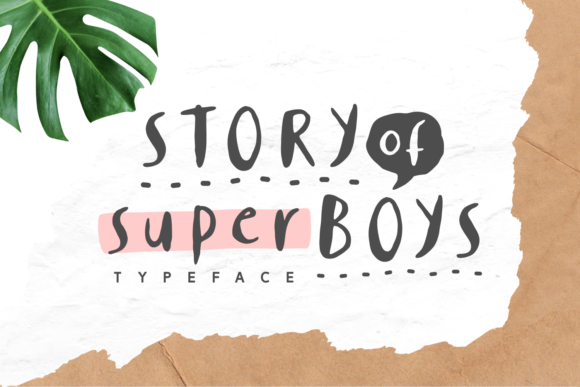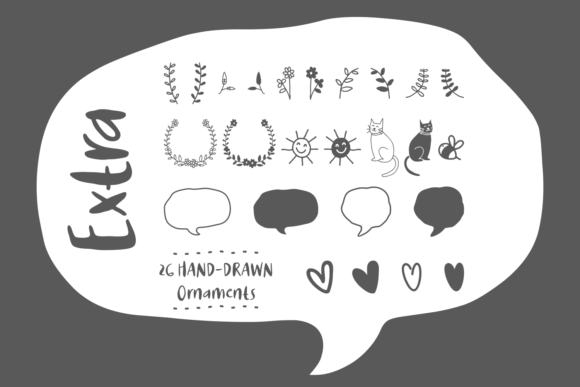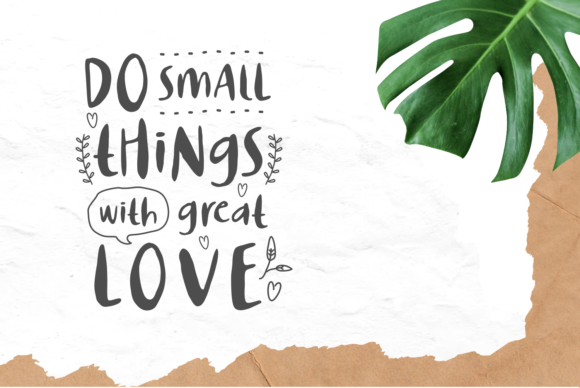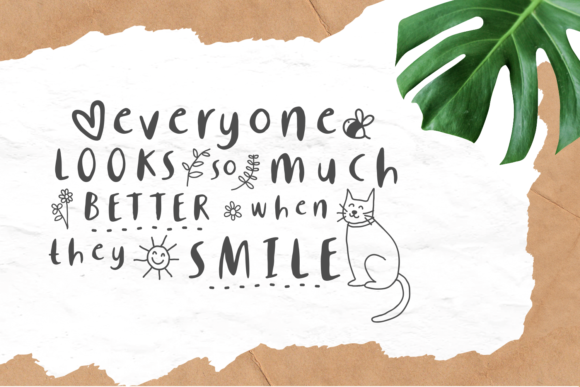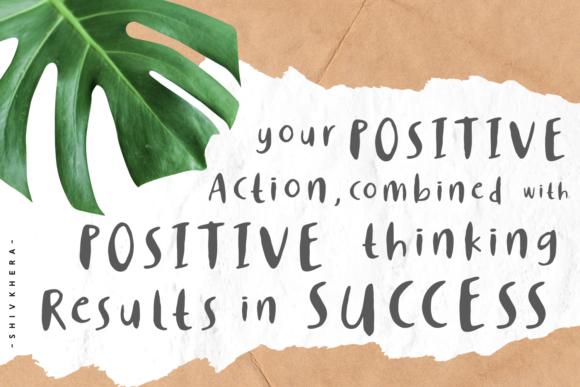
Story of Super Boys Font
About Story of Super Boys Font
Story of Super Boys is a playful kids-inspired font.
It’s very versatile and can be used for playful designs and branding.